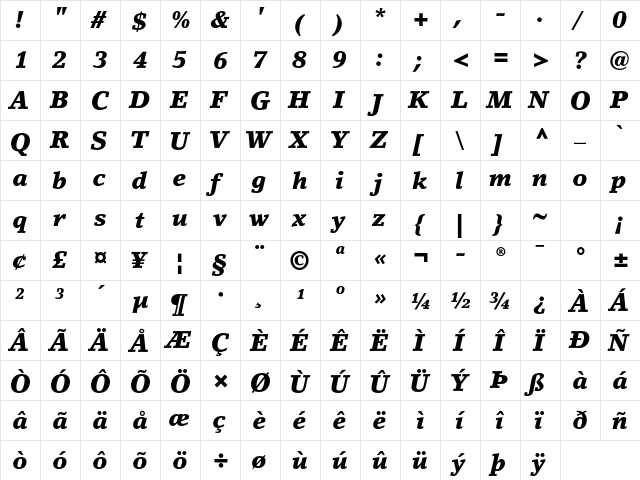
LinoLetter Std Black Italic
| Designer | Reinhard Haus, Andre G߲tler |
Design Context for LinoLetter Std Typeface
LinoLetter Std offers clean, dependable letterforms without strong stylistic allegiance, making it a practical choice for designers who need flexibility. Its italic angle brings a sense of urgency and motion to the letterforms.
Pro Tip: Try LinoLetter Std for annotation and caption copy alongside an upright companion — the contrast in angle creates a dynamic but ordered typographic system.